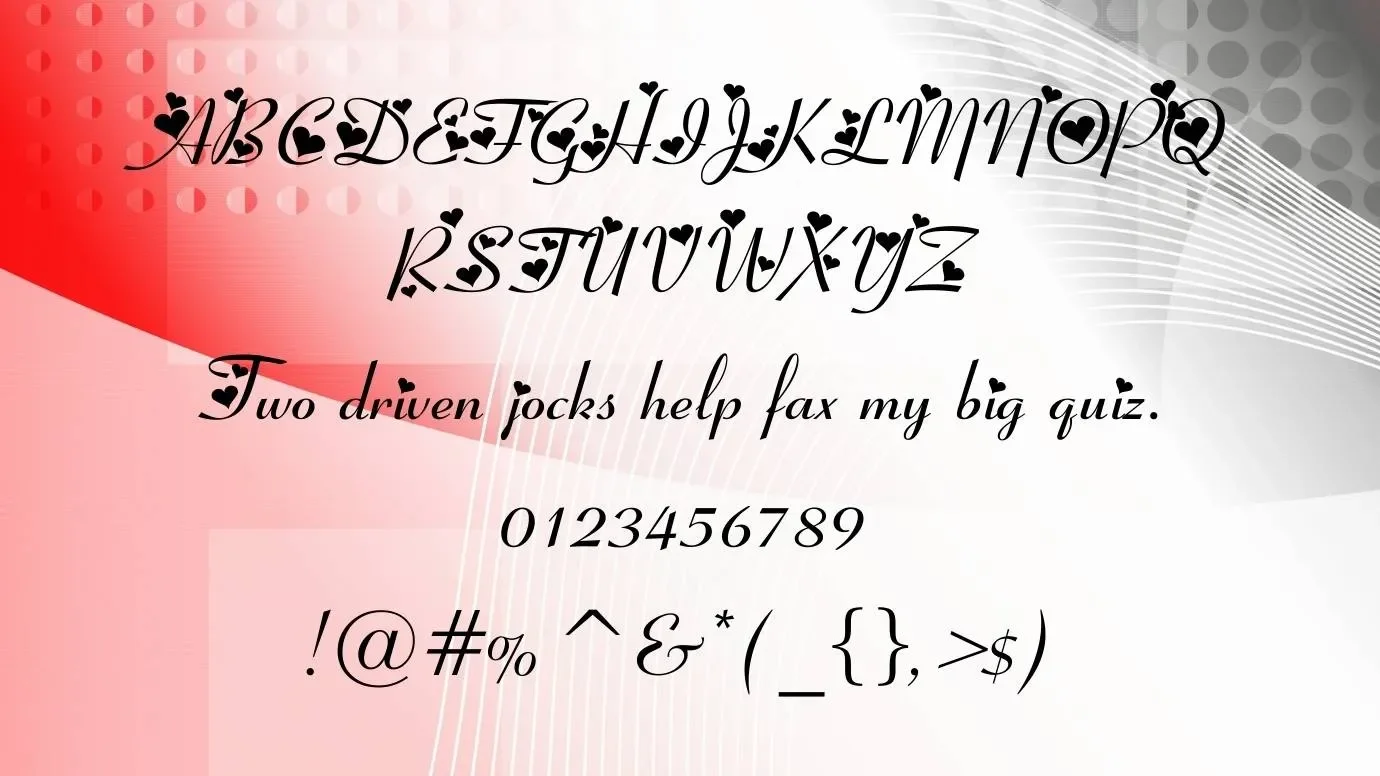
Today, we are consulting on the very famous typeface that is known by the name Fiolex Girls font. It belongs to the Calligraphy font family. This typeface is specially designed for little girls. This stunning typeface was created by Hans Reichel in 1995.
This awesome font is available in two styles, Regular and Bold. This cozy typeface is available in more than 211 unique characters and also 185 popular and stylish Glyphs. You can easily use this font for a wide variety of designs. Its copy and paste function is best for many textual designs.
Reason to Use Fiolex Girls Font
This outstanding font is best for making amazing tattoo designs, unique emblems, product packaging, book covers, game development, website headers, and many other useful things.
This wonderful typeface is used for various designs such as product packaging, comic covers, posters, vehicle wraps, and many others. For different types of fashion magazines, this typeface is used in their headlines and titles. This classy font is also widely used by different companies for making their brand identity more unique and elegant.
This font is very stylish, so it is perfect for making beautiful and attractive wedding cards, greeting cards, business cards, and others. This typeface can be used to write short paragraphs of text.
Fiolex Girls Font View
What type of font is Fiolex Girls Font?
It is a stylish Calligraphy typeface that consists of only one regular style. This typeface was created by Hans Reichel in the year 1995.